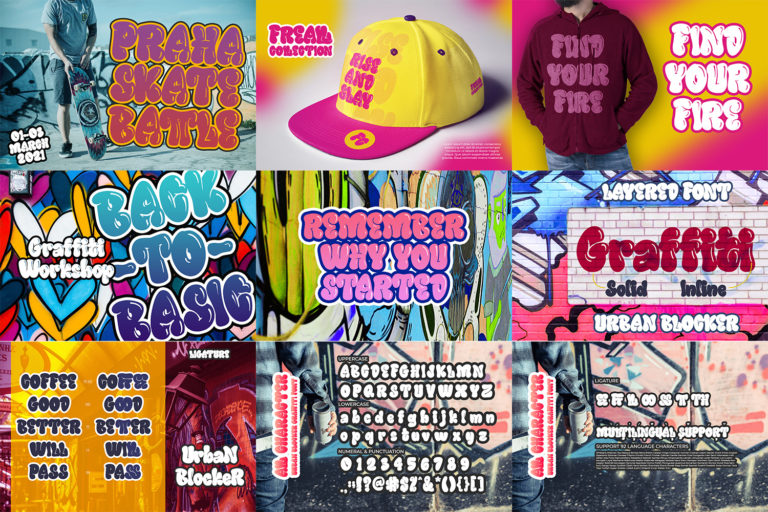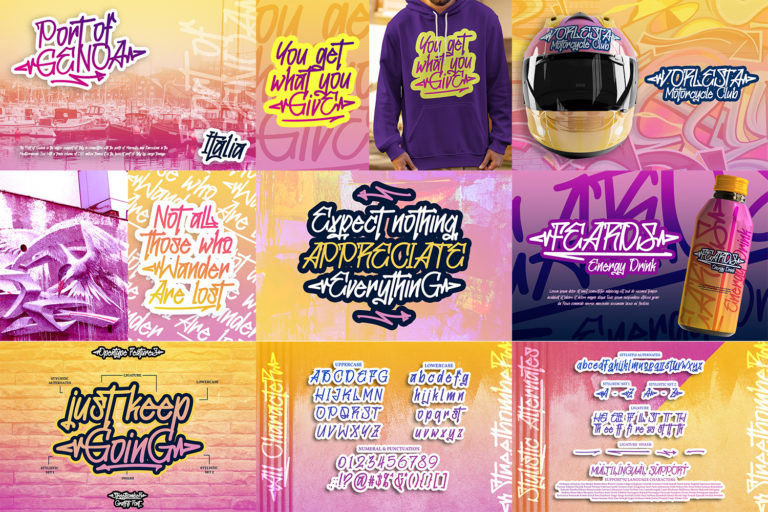
Graffiti Font Bundle
Hello, everyone! Introducing a Graffiti Font Bundle from Din Studio. Graffiti Font Bundle consists of 10 font families that have a artistic style look. This graffiti font style embodies the urban tagging scene to breathe a street life vibe into your projects. The fonts can be used for a host of different content needs and projects. Create gorgeous printed quotes, standout packaging, or beautiful t-shirts! You can even use it to create amazing headings, logos, menus, and social media graphics.
The bundle includes Multilingual Support. See the previews above to get some inspiration on how you can use them.